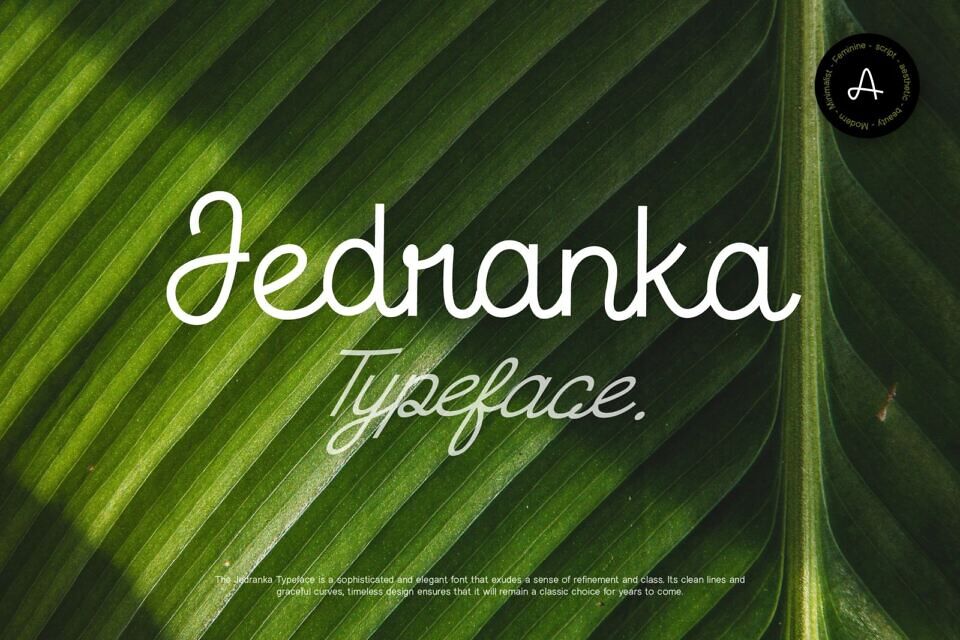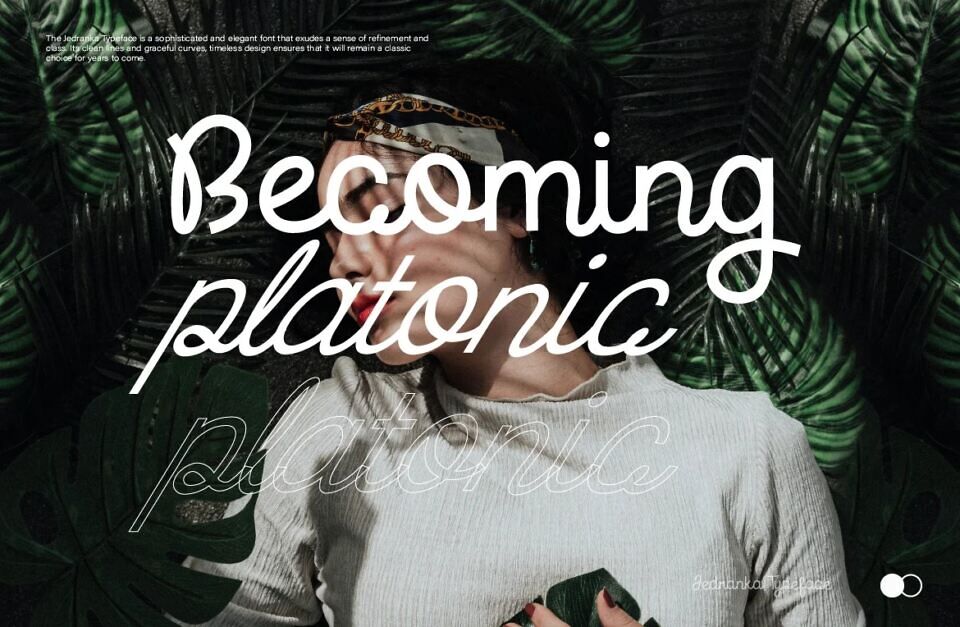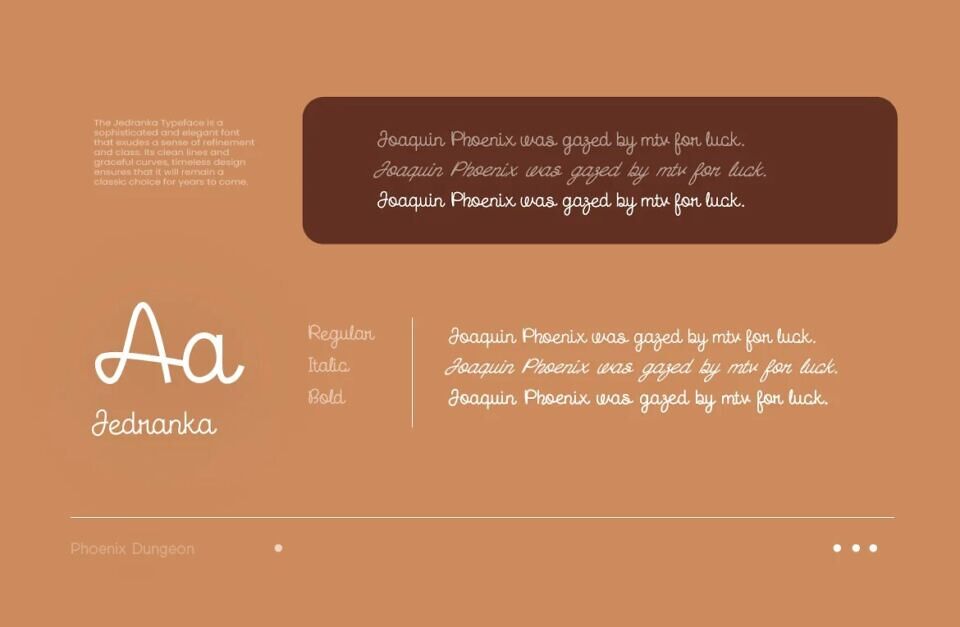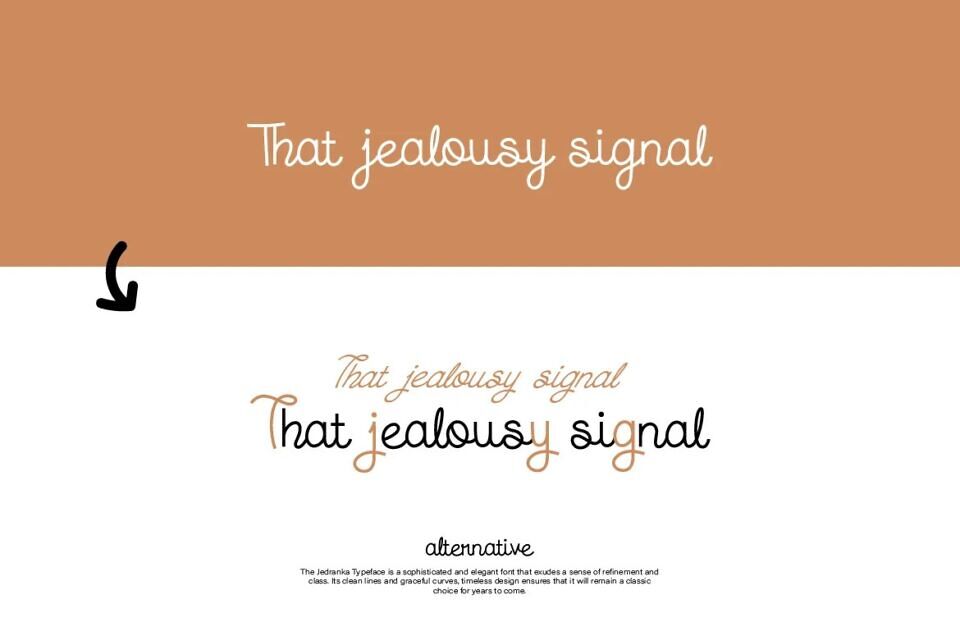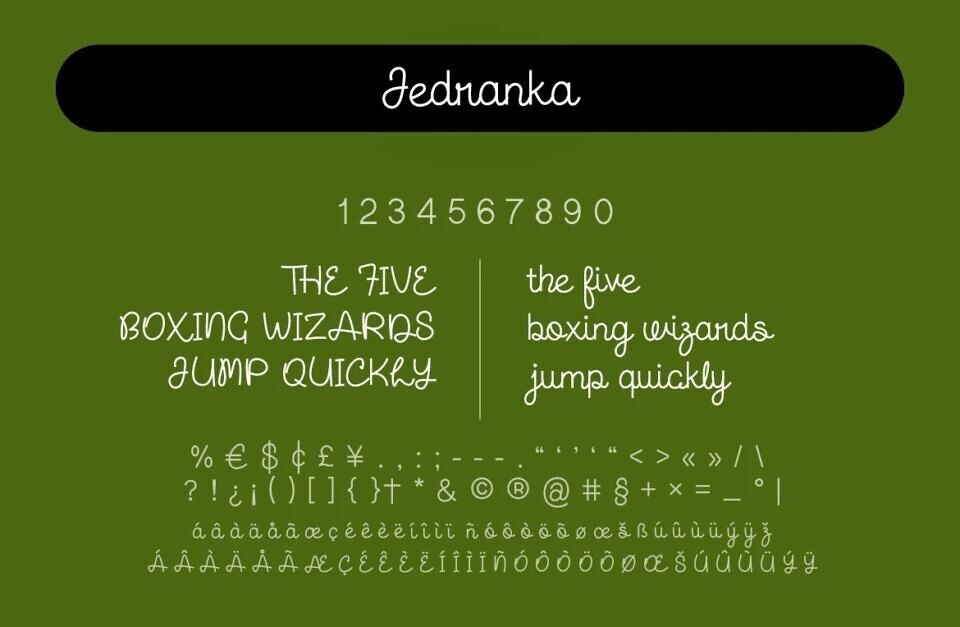
Jedranka is a minimalist script font that exudes formal elegance with a touch of modern sophistication. Its refined, flowing letterforms are designed to convey a sense of grace and professionalism, making it ideal for high-end invitations, formal correspondence, and upscale branding.
The clean, understated curves of Jedranka maintain a delicate balance between simplicity and refinement, ensuring a polished and timeless appearance. Perfect for projects that require a formal yet stylish touch, Jedranka brings a classic script aesthetic to contemporary designs, offering a beautiful and understated elegance.